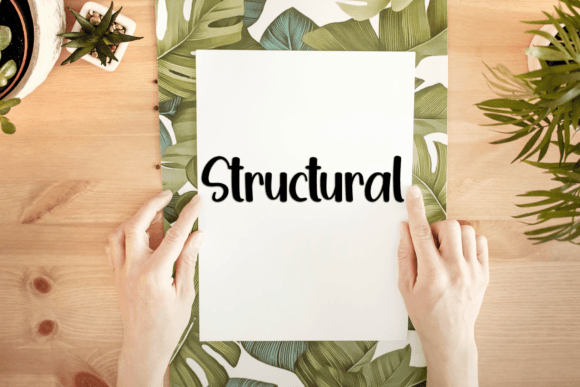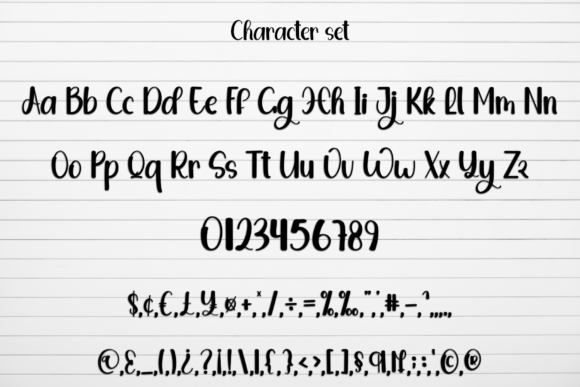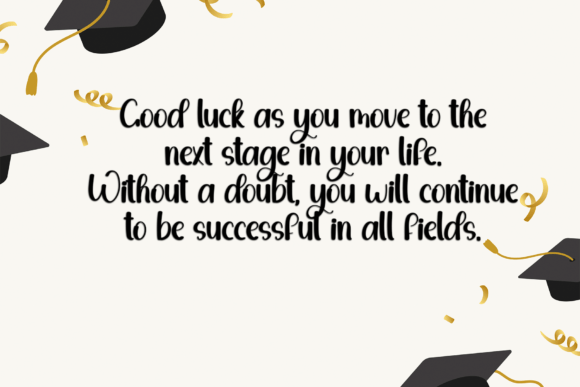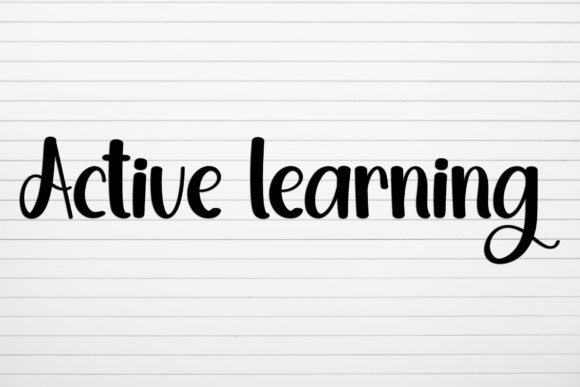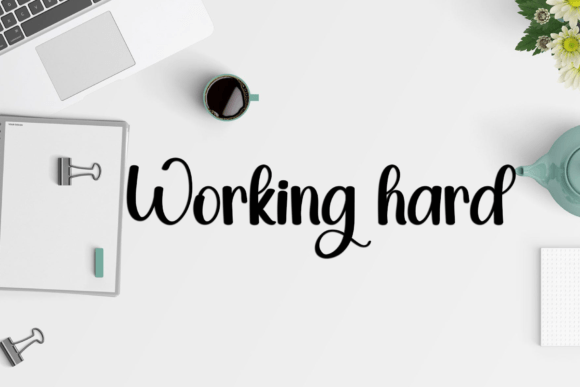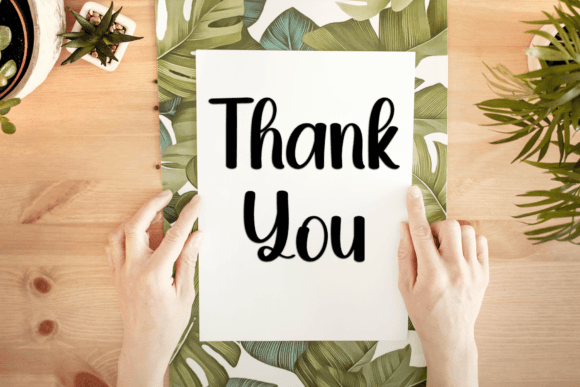
The Magic of Handwritten Fonts: Unlocking the Potential of Calligraphy Font
Have you ever been in the middle of a creative project, and suddenly, you’re stuck? The words just won’t flow, and the design seems dull? That’s where the magic of Calligraphy Font comes in – a cool, simple, and playful handwritten font that can elevate your designs to new heights. This incredibly versatile font is perfect for adding a personal touch to your work, making it stand out from the crowd.
As a designer, you know how important it is to have the right tools at your disposal. That’s why Calligraphy Font is a valuable addition to any design arsenal. Whether you’re working on a logo, a brochure, or a website, this font is sure to bring a touch of elegance and sophistication to your work. So why not give it a try and see how it can transform your designs?
Key Features of Calligraphy Font
- Unique Characteristics: Calligraphy Font boasts elegant, cursive script letters with flourished strokes, making it ideal for creating beautiful, handwritten-style text and titles.
Designer Review: Calligraphy Font
Overall, I think the Calligraphy Font is a beautiful addition to any design project. ✨ It’s perfect for creating a luxurious and elegant feel, and the flowing lines and curves add a touch of sophistication. ✨
Here are some of the things that I think work well:
- Beautifully crafted letterforms that are both intricate and refined ✨
- Works well in a variety of settings, from wedding invitations to luxury branding
- Can be used in both digital and print formats
- Highly customizable, allowing for a range of styles and effects
- May be difficult to read in small sizes, especially for those with vision impairments ⚠️
- Not suitable for bold or edgy designs, as it can come across as too fancy or pretentious ⚠️
- Can be overwhelming if used too extensively, so it’s best to use it sparingly
Overall, I would say that the Calligraphy Font is a great choice for designers looking to add a touch of elegance and sophistication to their projects. Just be mindful of the limitations and use it thoughtfully to avoid overwhelming your design.